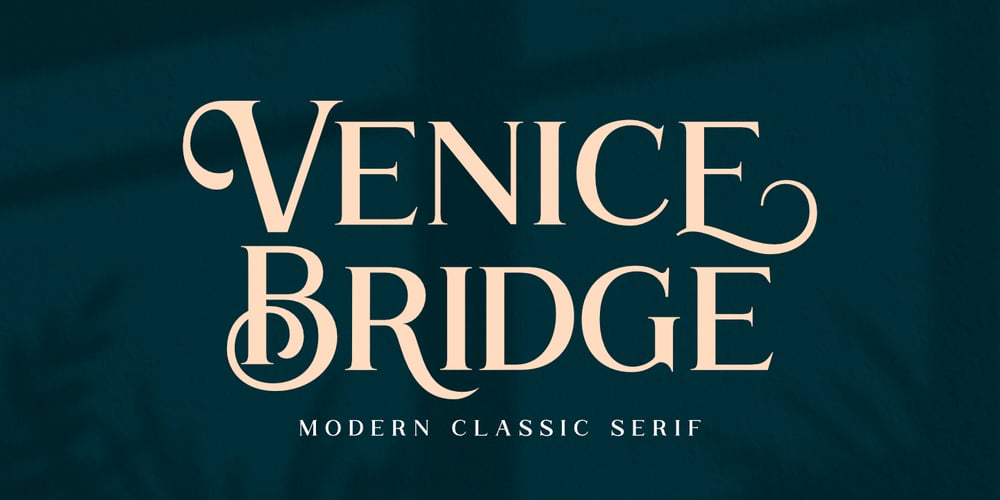
Venice Bridge
Venice Bridge font
Venice Bridge Font Family was designed by Diki Hermawan and published by Typestory. Venice Bridge contains 1 styles and family package options. Venice Bridge is an elegant and distinct serif font. It has a classy, elegant and modern look that can be used for logos, branding, invitations, stationery, wedding designs, social media posts, and much more!What’s Included : Web Font Ton of glyphs Ligature, Alternate & Swashes Works on PC & Mac Simple installations Accessible in the Adobe Illustrator, Adobe Photoshop, Adobe InDesign, even work on Microsoft Word. PUA Encoded Characters – Fully accessible without additional design software. Thank you for your purchase!That’s it !! Have fun using our font 🙂